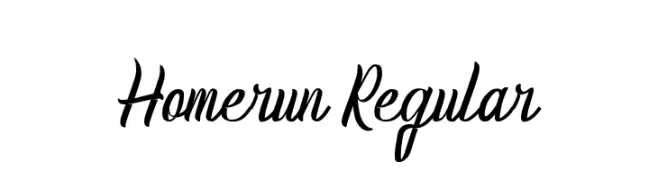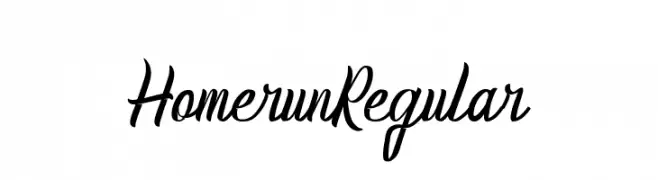
A vintage italic font with a textured, elegant style.
A bold, expressive brush script font with dynamic strokes.
A playful, hand-drawn style font with irregular and dynamic letterforms.
A playful, hand-drawn font with bold, rounded characters and a whimsical style.
A playful, hand-drawn font with a bold and whimsical style.
A playful and quirky font with irregular shapes and varying stroke thicknesses.
A bold, decorative font with geometric shapes and artistic flair.
A bold, artistic font with striking curves and sharp edges, ideal for decorative use.
A bold, playful font with a bubbly and whimsical design.
A playful, bold font with curvy, whimsical strokes and a lively appearance.
A bold, decorative font with high contrast and unique character designs.
A bold, playful font with rounded, bubbly characters and a friendly aesthetic.
An elegant, flowing script font with a sophisticated, handwritten style.
A playful, handwritten font with bold, irregular strokes.
A playful, informal handwritten font with dynamic strokes and a lively appearance.
A graceful, handwritten script font with elegant curves and fluid lines.
Playful bubble-like decorative font.
Casual handwritten script font.
Elegant cursive script with a handwritten style.
Playful handwritten font with casual style.
Playful handwritten font with a casual style.
A whimsical, handwritten font with tall, narrow, and irregular letterforms.
Casual handwritten script with playful, organic strokes.
Bold, graffiti-inspired display font with angular, dynamic forms.